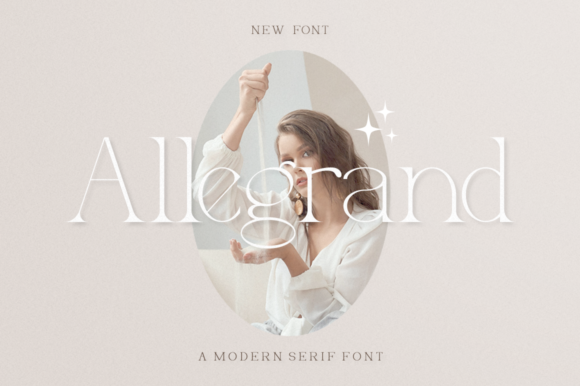
Witness the allure of Allegrand, an enchanting serif font that will leave you spellbound. Designed by the talented team at RockboyStudio, this font boasts a timeless elegance that will elevate your designs to new heights. With its sharp serifs and graceful curves, Allegrand exudes an air of sophistication and charm.
Step into a world of creative possibilities with Allegrand. Its carefully crafted characters dance harmoniously on the page, inviting you to weave captivating stories and express your unique voice. Whether you're crafting a heartfelt blog post, designing a stunning poster, or creating a memorable brand identity, Allegrand will effortlessly capture the essence of your message and leave a lasting impression.
Immerse yourself in the rich history of serifs, a timeless font family characterized by their distinct strokes and elegant terminals. Allegrand pays homage to this tradition while adding a touch of modernity, making it the perfect choice for those seeking a classic yet contemporary look. Its versatility knows no bounds, adapting seamlessly to a wide range of design projects, from classic wedding invitations to eye-catching social media graphics.
Unleash your creativity and let Allegrand guide you on a journey of self-expression. Its impeccable craftsmanship and unwavering attention to detail ensure that your designs will radiate with sophistication and style. Let your imagination soar as you explore the endless possibilities that Allegrand offers, transforming your creative visions into tangible masterpieces.